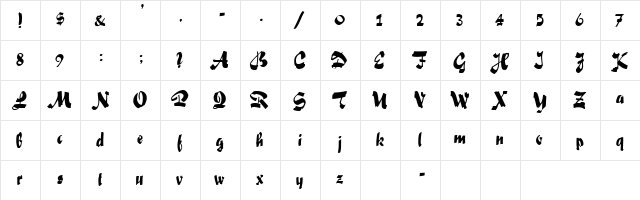
FIFFEL Regular
Design Context for FIFFEL Typeface
FIFFEL is a composed and adaptable typeface that performs quietly and consistently across a wide range of design contexts.